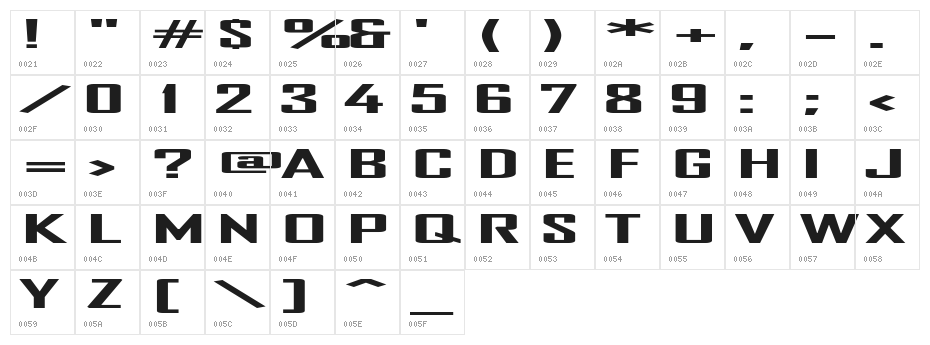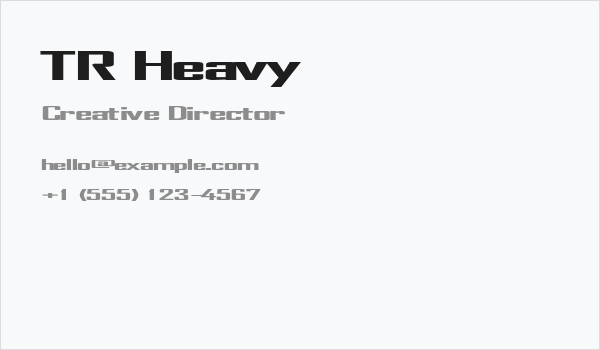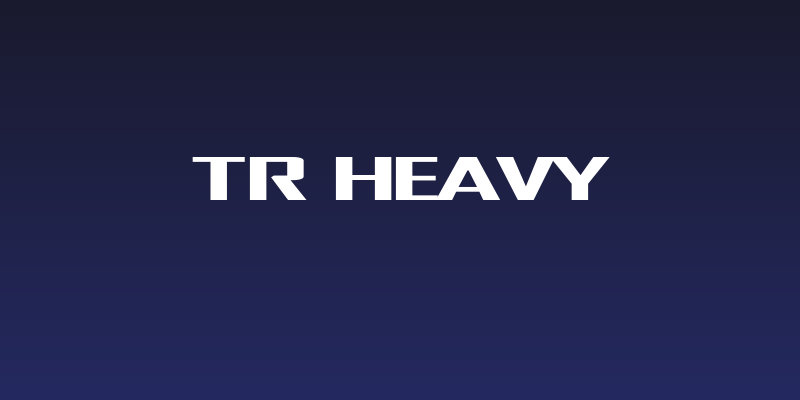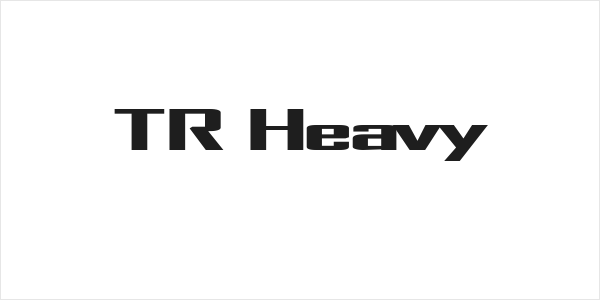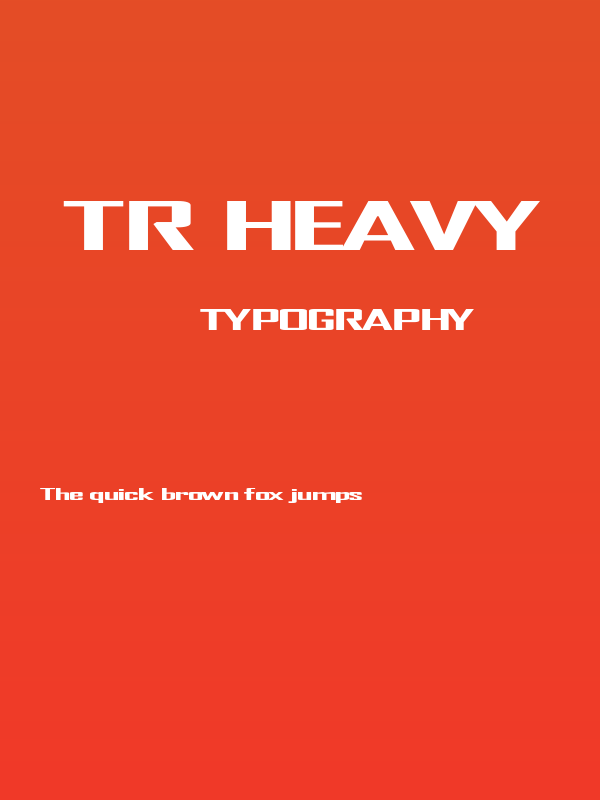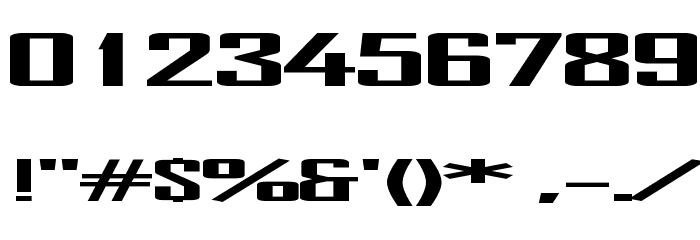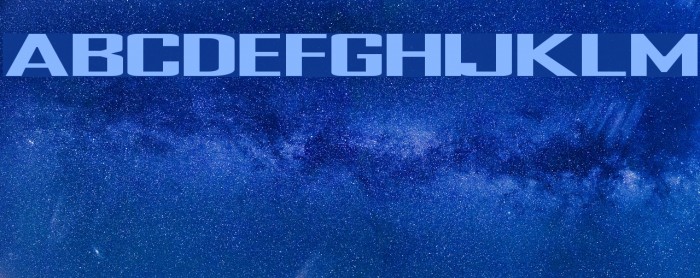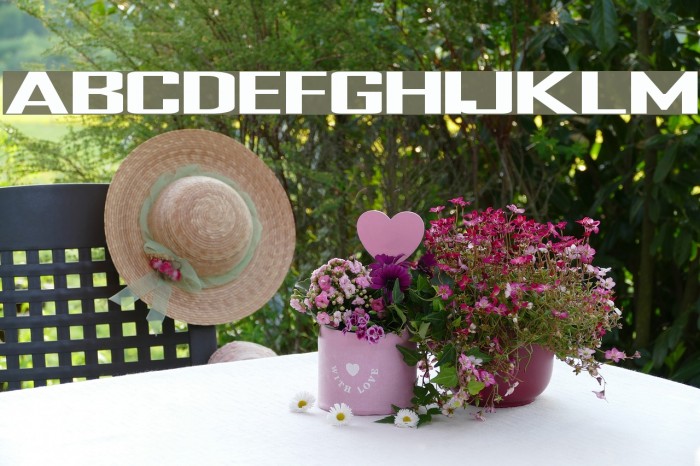
TR Heavy Font
TR Heavy Description
This font features a bold and impactful design with strong geometric elements. The characters are wide and have a distinct angular style, giving them a modern and assertive appearance. The uppercase letters are particularly striking, with sharp edges and a uniform height that creates a cohesive look. The lowercase letters maintain the boldness of the uppercase, with slightly softer curves that add a touch of versatility. The numerals are consistent with the overall style, ensuring readability while maintaining the font's unique aesthetic. Special characters are well-integrated, providing a complete set for various design needs.
| Proposed Projects | Ideal for branding, headlines, posters, and any project requiring a strong visual impact. |